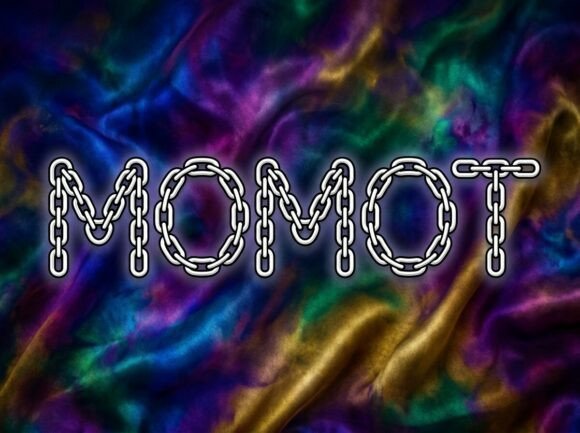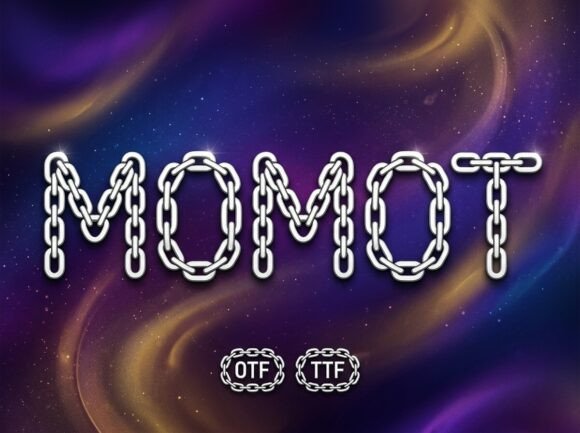
Introduction to Momot Font
Remember that moment when you stumble upon a design element that makes your creative project stand out? For designers, it’s like finding a hidden treasure – a game-changer that elevates your work from ordinary to extraordinary. The Momot Font is one such treasure, a stunning decorative display font designed to be the center of attention.
With its unique artistic elements and strong visual personality, the Momot Font is perfect for creators who want to break away from the ordinary. Whether you’re working on a high-quality design project or a free download for a design resource, this font is sure to add a touch of elegance and sophistication. Its versatility makes it suitable for bold headlines, artistic logos, and creative packaging, all while maintaining a professional and polished finish.
Honest Review: Momot Font
I recently had the chance to work with the Momot Font, and I must say it’s a unique addition to any design resource collection. The high quality of the font is immediately apparent, with crisp lines and a professional feel.
However, I did encounter some limitations while using the Momot Font. ⚠️ The font is not as versatile as some other options, and it may not be suitable for every design project.
Overall, I was impressed with the Momot Font. While it may not be perfect for every project, it’s a solid choice for designers looking for a high-quality, free font that can add a unique touch to their work.
The Momot Font is ideal for a variety of creative projects, including branding, marketing materials, social media graphics, and web design. Its transparent background makes it easy to integrate into any design, and its high-quality design ensures that it will look great on any platform.